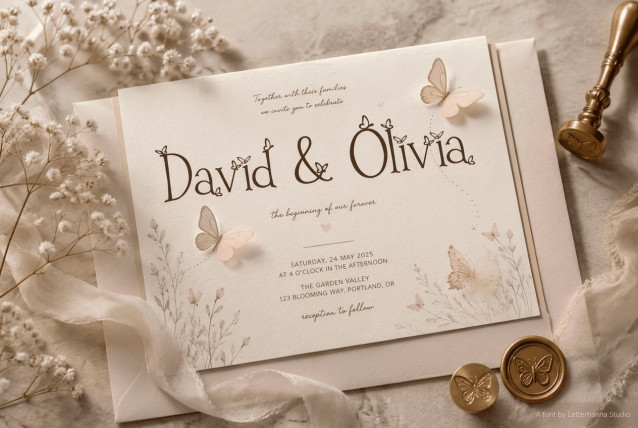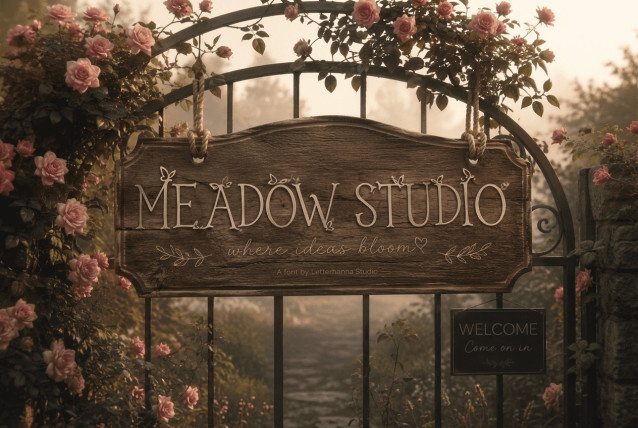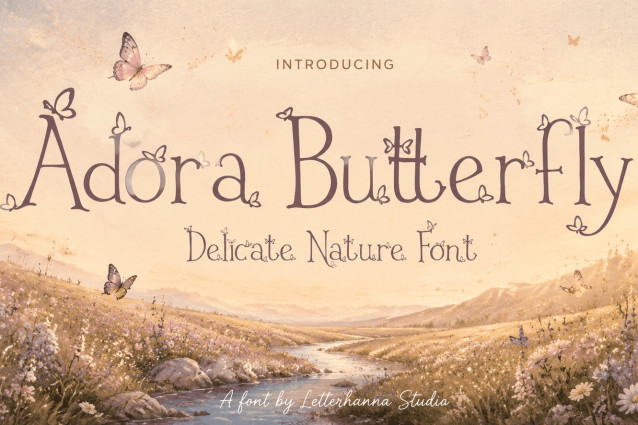
Adora Butterfly Font
Adora Butterfly: A Dreamy Garden Font Inspired by Nature
There is a particular kind of morning that every gardener knows — the hush right after sunrise, when dew still clings to the petals and the first butterfly of the day lifts off from a leaf like a small secret being let go. Adora Butterfly was born from that exact moment. It is a garden font built not from cold geometry but from memory: the curl of a vine climbing a trellis, the soft wobble of a butterfly’s flight path, the quiet elegance of a flower bed left slightly wild on purpose.
If you have been searching for a garden font that feels alive rather than printed, Adora Butterfly might be the missing piece in your next design. This is not just another script trying to look pretty — it is a nature font designed with intention, where every swash and every tiny illustrated wing was placed to tell a story about growth, softness, and quiet joy.